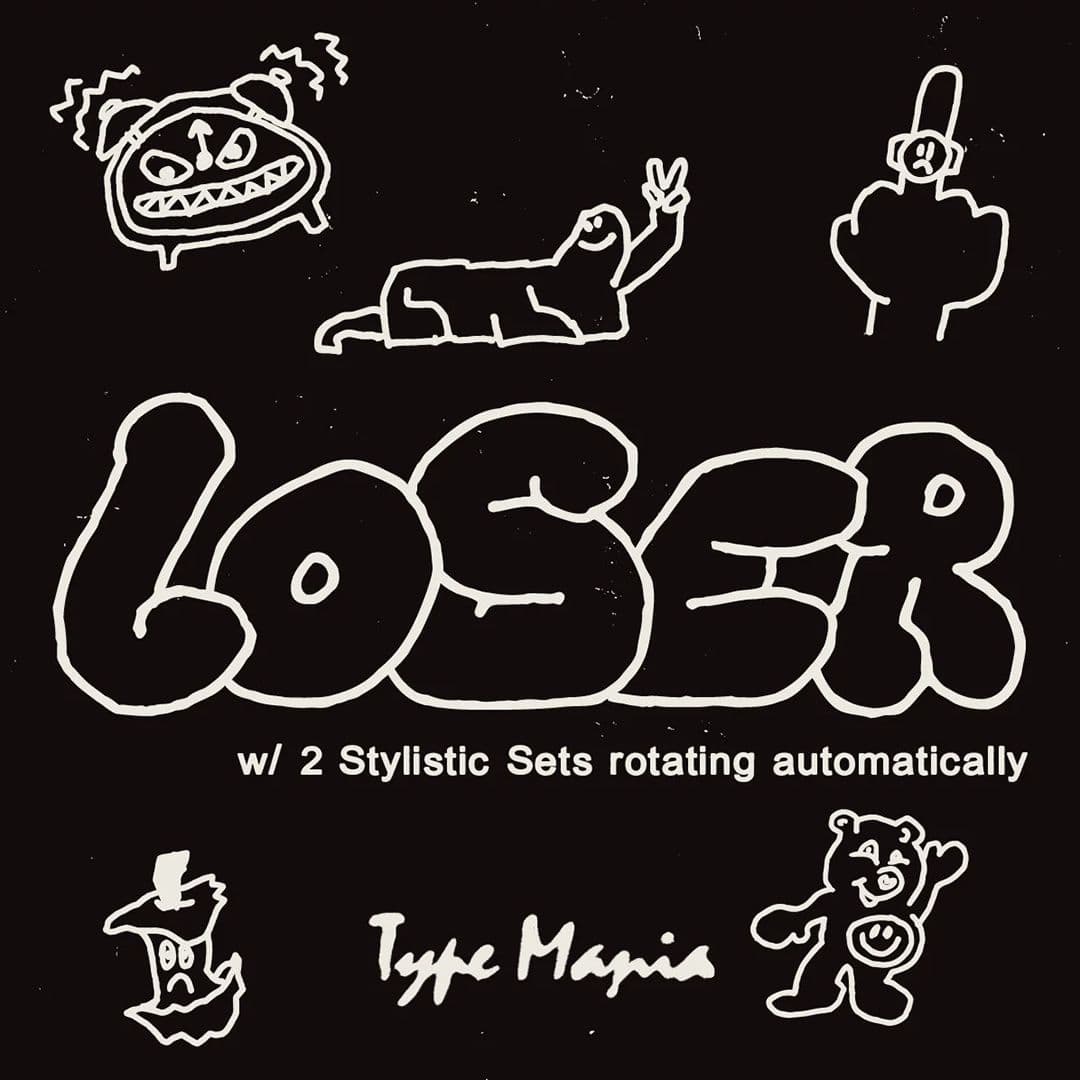
<p>Say hello to <strong>Loser TM</strong> – the scribbled, bubbly font from Type Mania. Whether you’re crafting social media graphics, quirky logos, or personal branding, this font brings a whimsical touch with its bold, rounded letters and handwritten feel. Remember: it’s more important to stand out than to blend in.</p> <p><strong>Zip includes</strong></p> <ul> <li>OTF file</li> <li>TTF file</li> <li>WOFF2 file</li> </ul> <p><strong>OpenType features</strong></p> <ul> <li>2 stylistic sets</li> <li>The font is programmed to automatically shift between the stylistic sets</li> </ul> <p><strong>Languages</strong></p> <ul> <li>Basic Latin</li> <li>Western European</li> <li>Euro</li> <li>Central European</li> <li>Pan African Latin</li> </ul> <p><em>Graphic Design is Easy (with Type Mania)®</em></p>